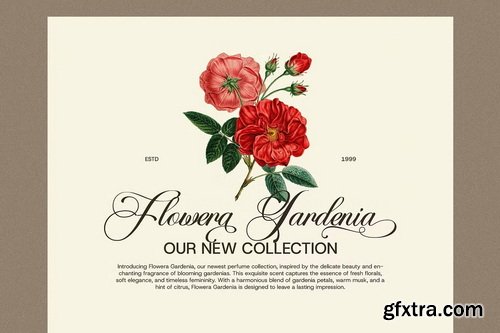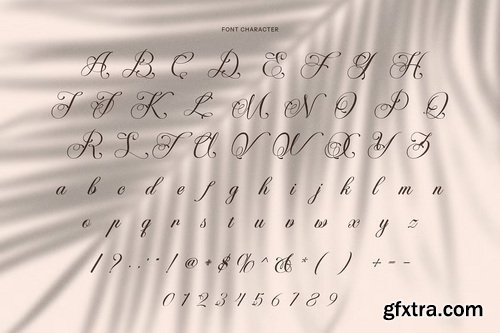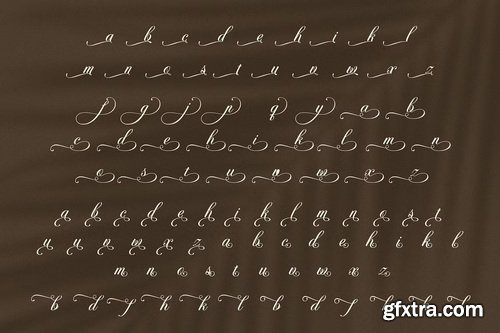
CreativeMarket - Bathsaida Calligraphy Script Font
Bathsaida Calligraphy Script Font is a sophisticated and graceful typeface that exudes timeless elegance. Designed with flowing strokes and refined details, this script font brings a luxurious and artistic touch to any project. With its smooth curves and stylish flourishes, Bathsaida is perfect for adding a handcrafted, high-end feel to your designs. Bathsaida Calligraphy Script is the perfect choice for wedding stationery, album covers, luxury product packaging, editorial layouts, business cards, and elegant website headers. The combination of classic calligraphic strokes and modern design sensibilities makes it versatile for both digital and print media.